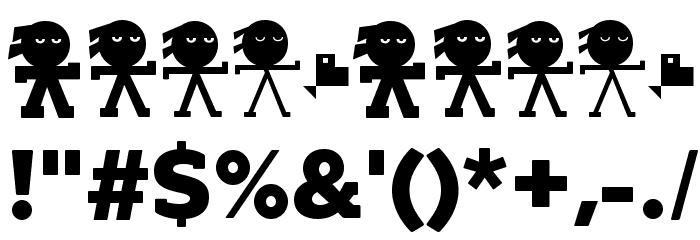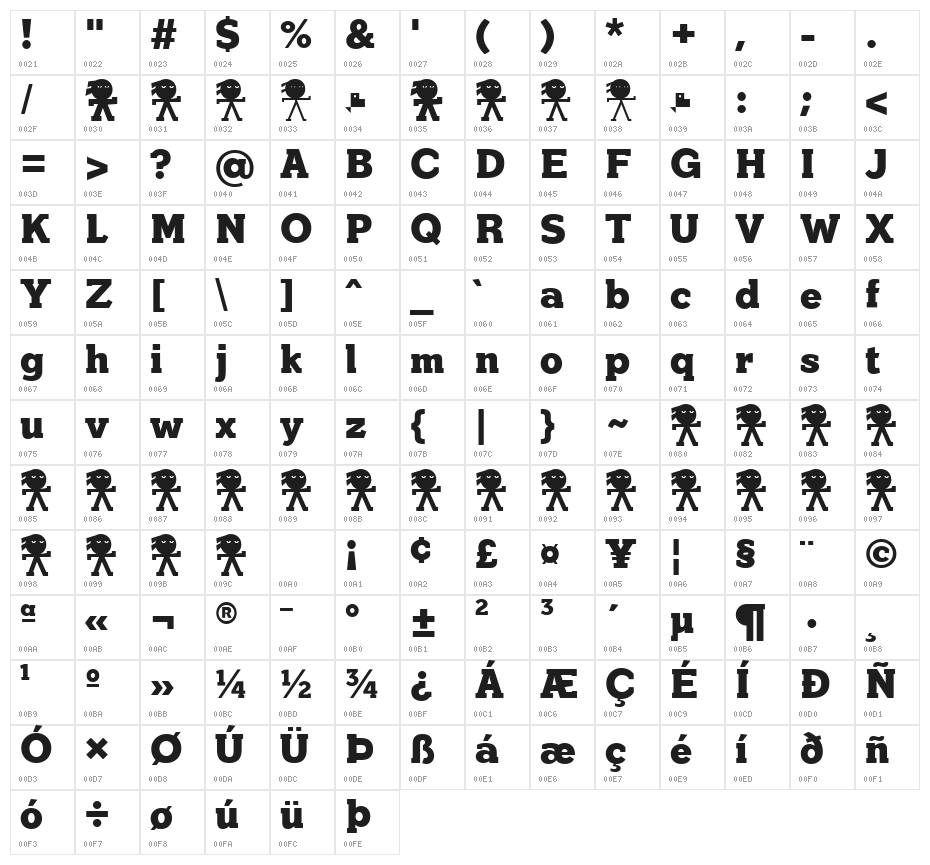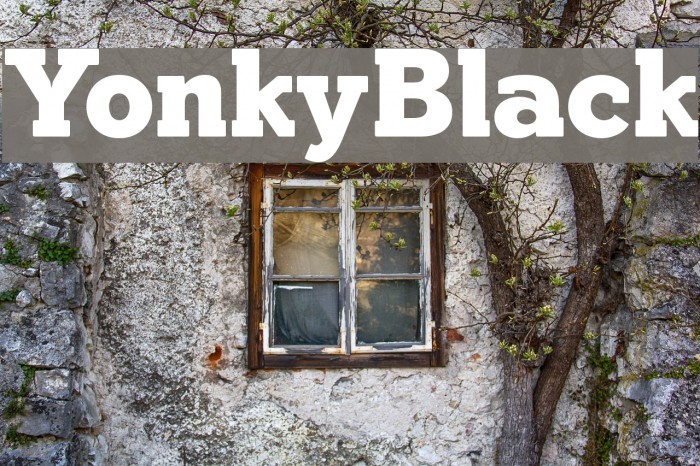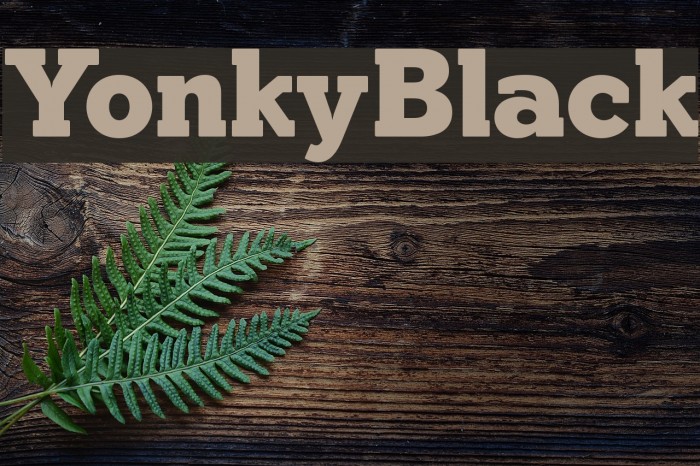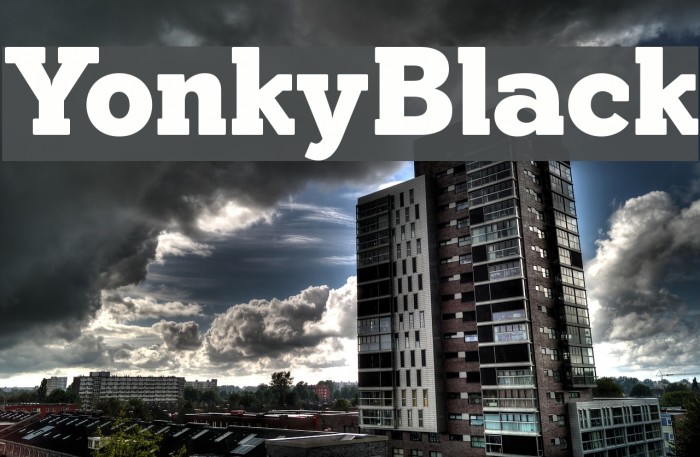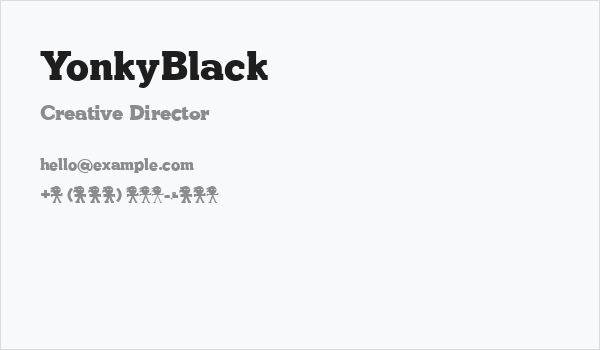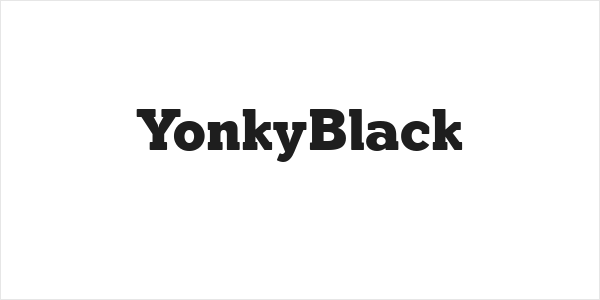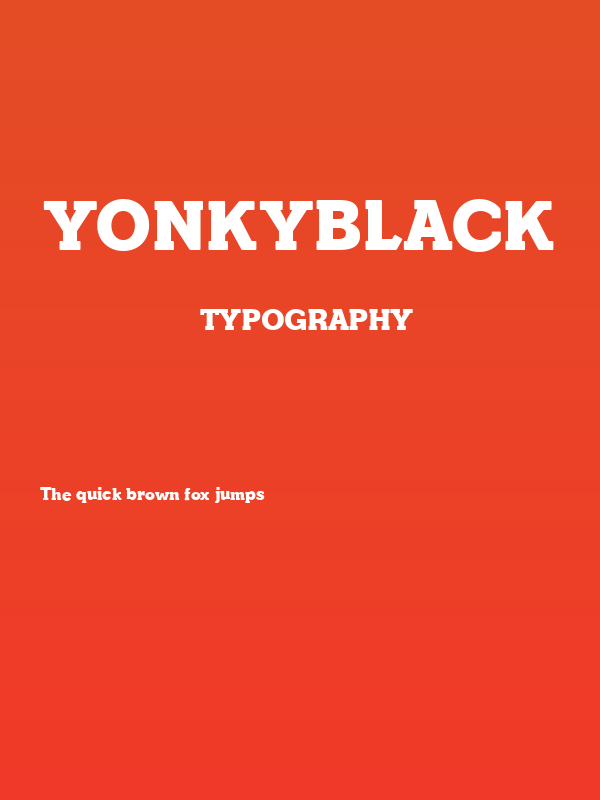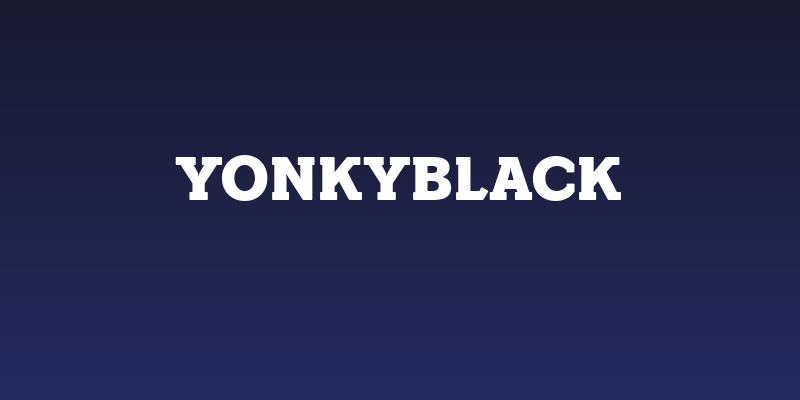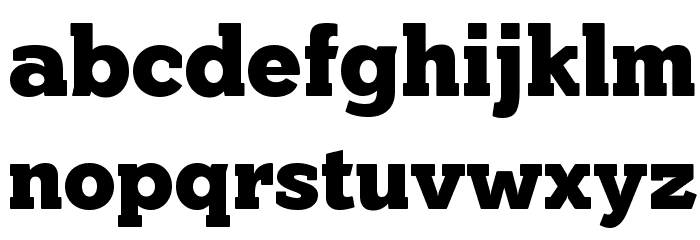
YonkyBlack Font
YonkyBlack Description
This font features bold, thick strokes with a strong presence, making it ideal for impactful designs. The characters are well-defined with a consistent weight throughout, providing a sense of stability and confidence. The uppercase and lowercase letters maintain a uniform style, enhancing readability. The font includes a playful set of stick figure characters, adding a unique and whimsical touch. Special characters are clearly defined, complementing the overall bold aesthetic. This font is suitable for projects that require a strong visual statement.
| Proposed Projects | Ideal for posters, headlines, branding, and any design needing a bold, playful touch. |